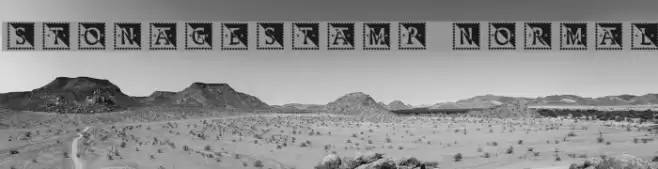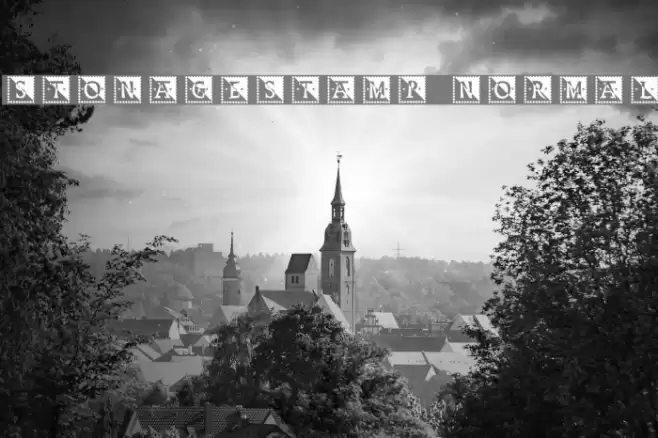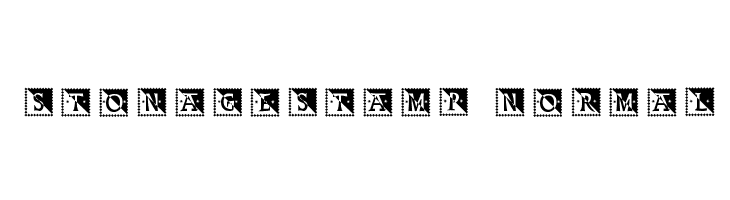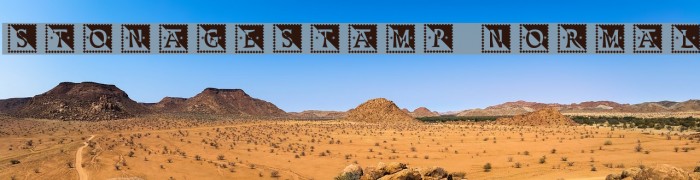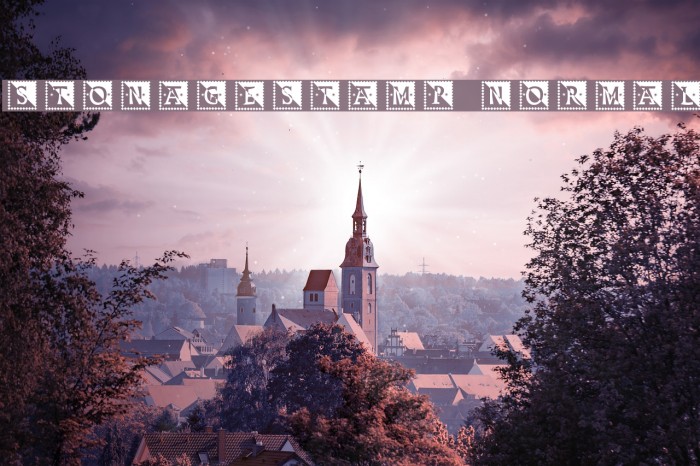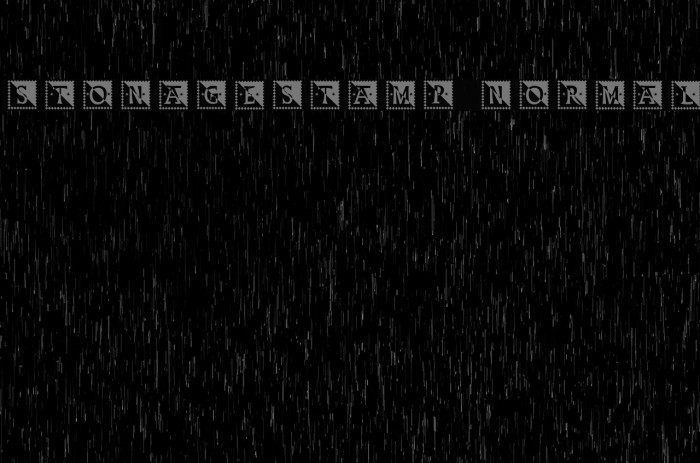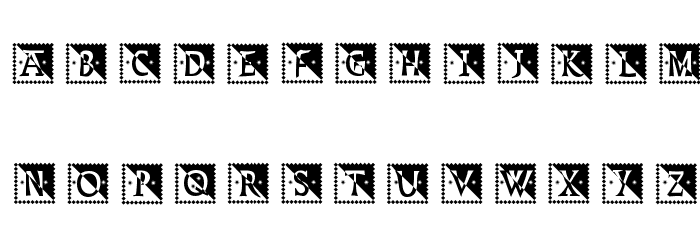
StonageStamp Normal Font
StonageStamp Normal Description
This font features a unique and bold design, reminiscent of vintage postage stamps. Each character is enclosed within a square border, giving it a distinct and decorative appearance. The letters are uppercase, with a playful and artistic style that combines both sharp and rounded elements. The font's design is highly decorative, making it suitable for creative and eye-catching projects. The boldness of the characters ensures they stand out, while the intricate border adds an element of sophistication and nostalgia.
A bold, decorative font with a vintage postage stamp style from Uncategorized fonts.
- Proposed Projects: Ideal for vintage-themed designs, posters, greeting cards, and branding projects that require a distinctive and artistic touch.
- Overall Style: Vintage